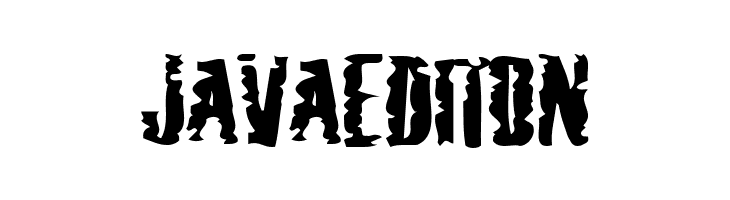
Terror Babble Expanded Font
- Font: Terror Babble Expanded
- Weight: Expanded
( Font by Gary D. Jessey )
A bold, angular font with a martial arts-inspired aesthetic.